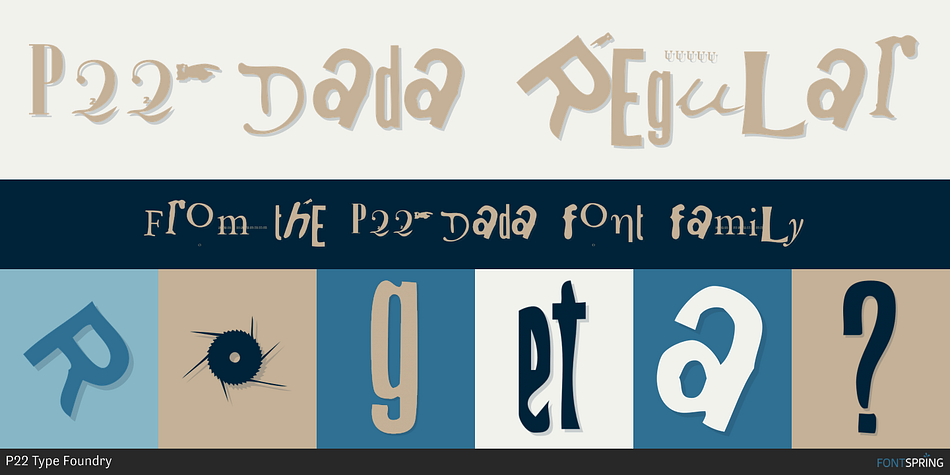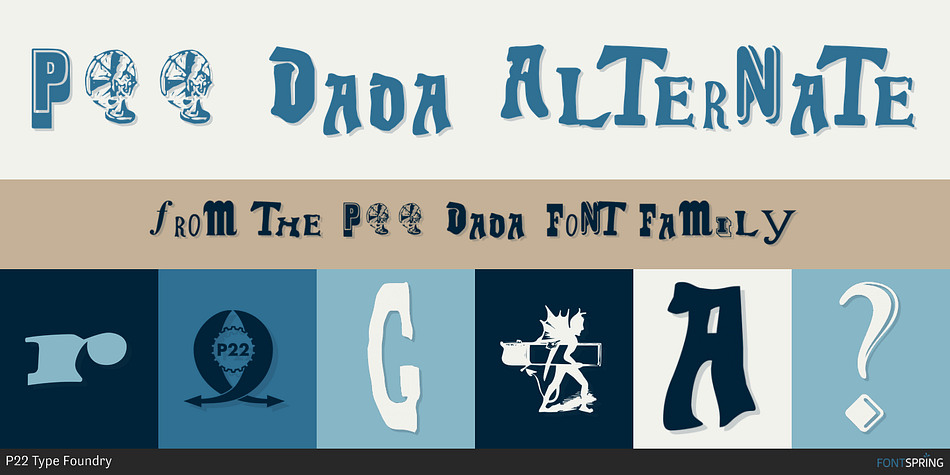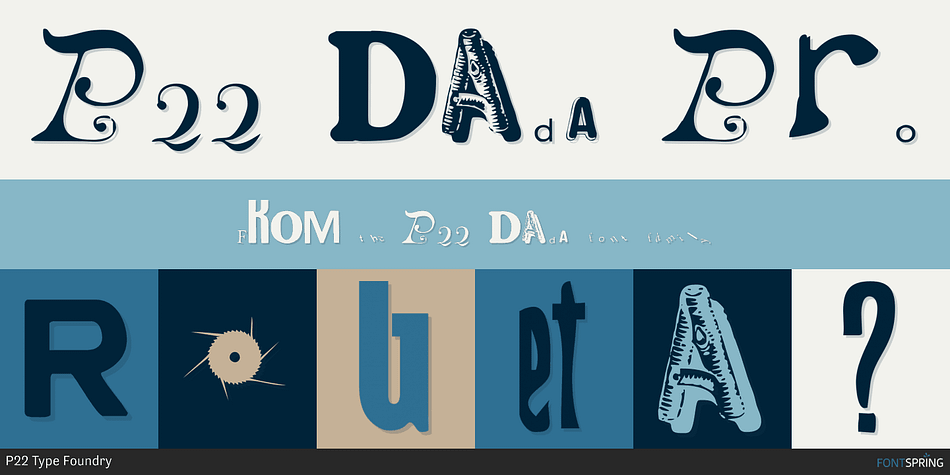
P22 Dada is a novelty font family. This typeface has three styles and was published by P22 Type Foundry.
The Dada font is a tribute to the typography of the Dada artists such as Duchamp, Schwitters and Arp in OpenType format.